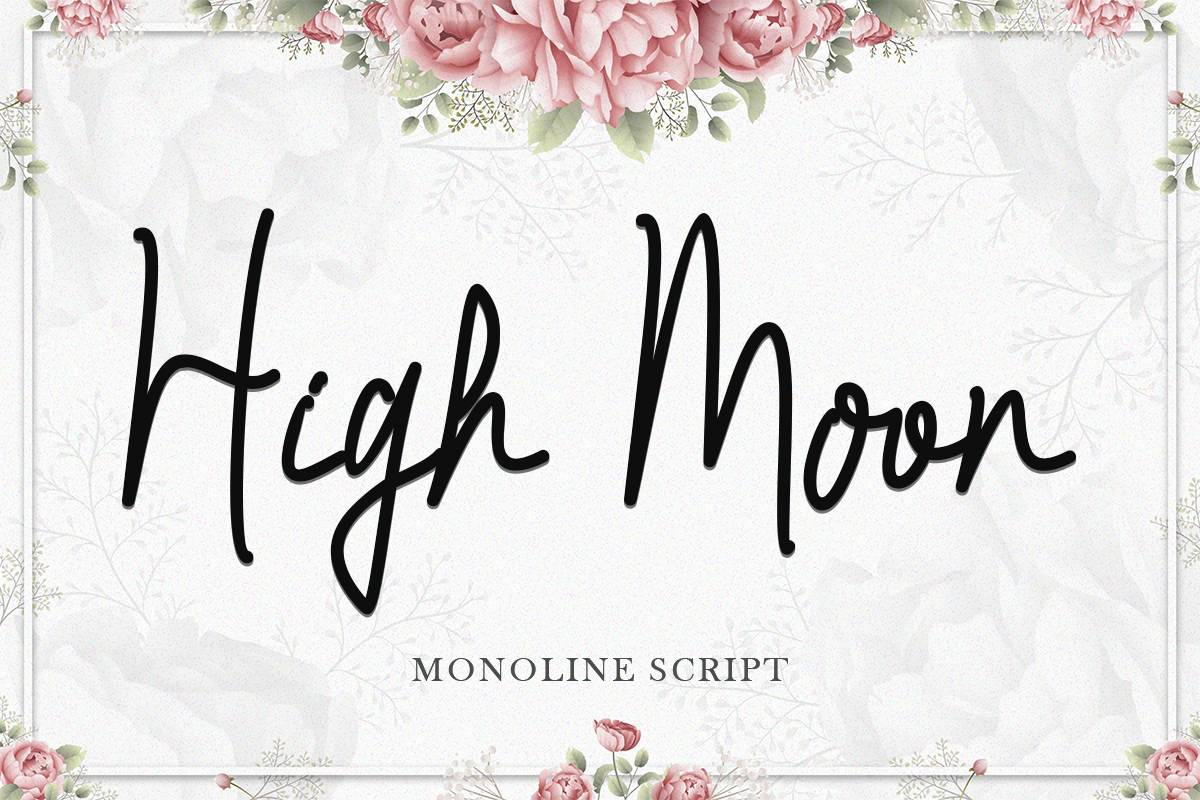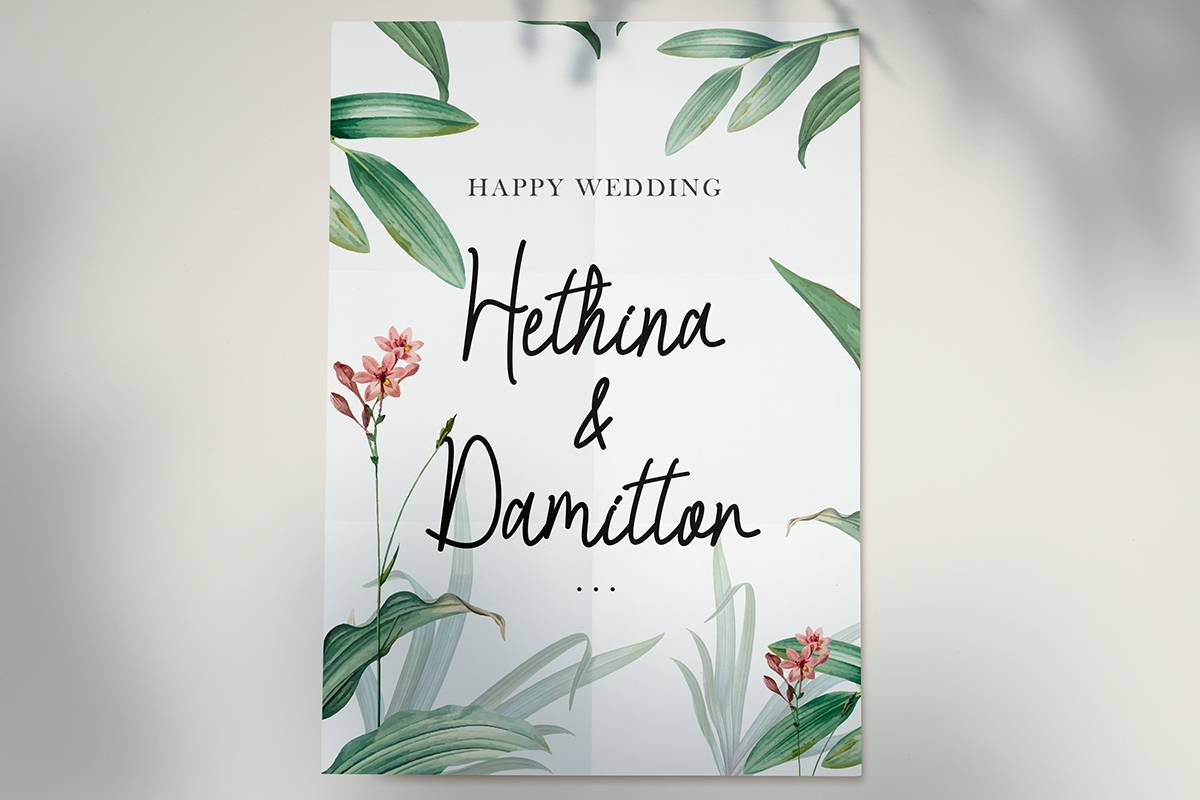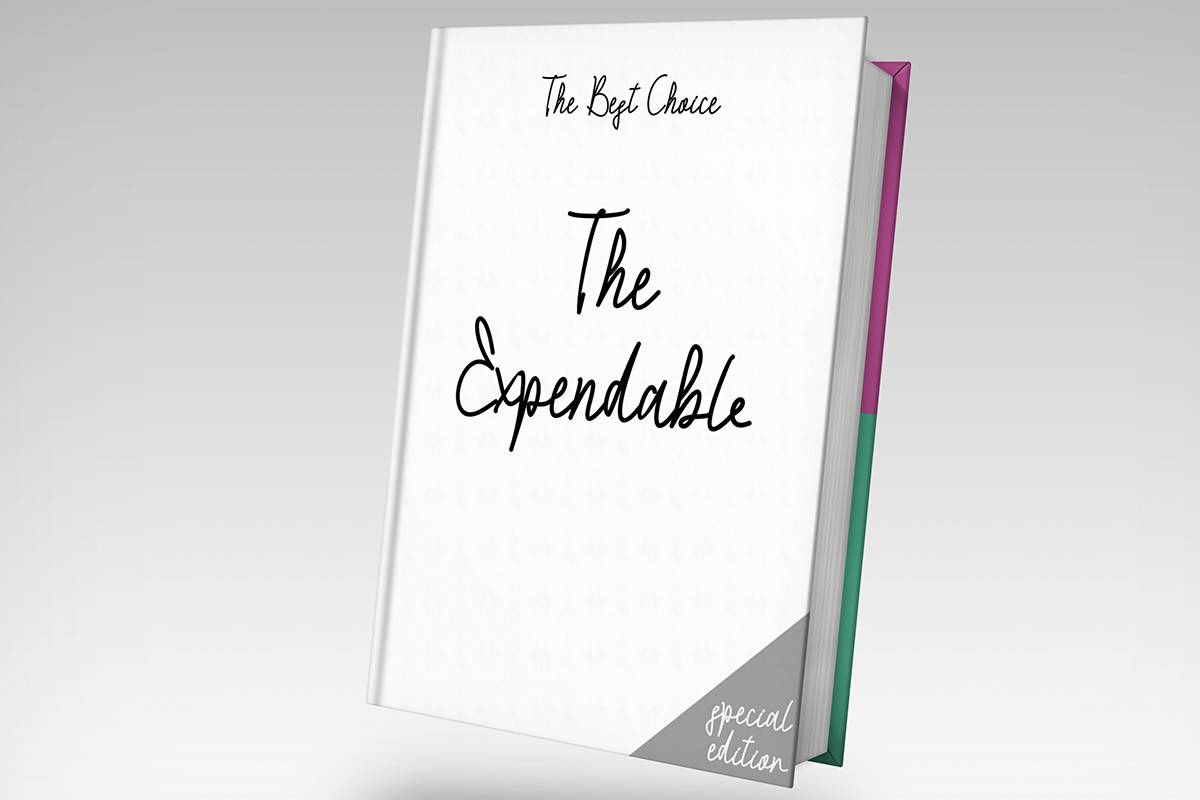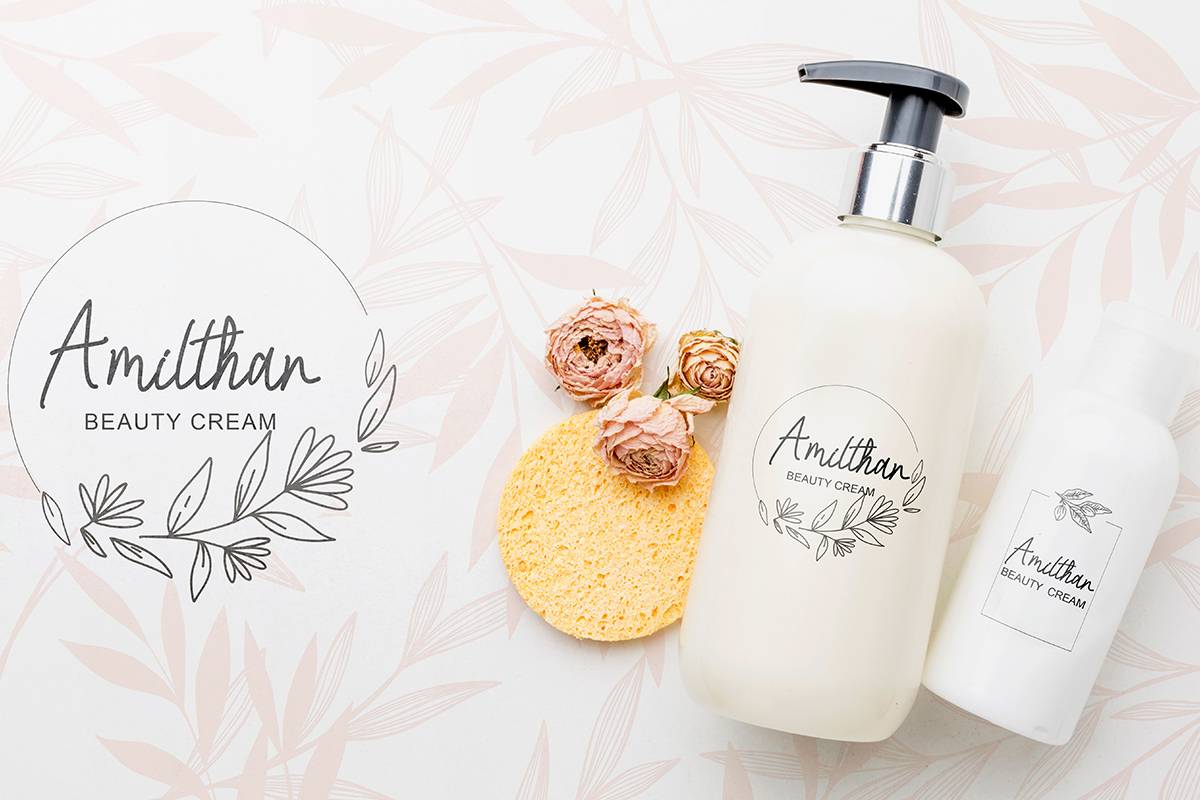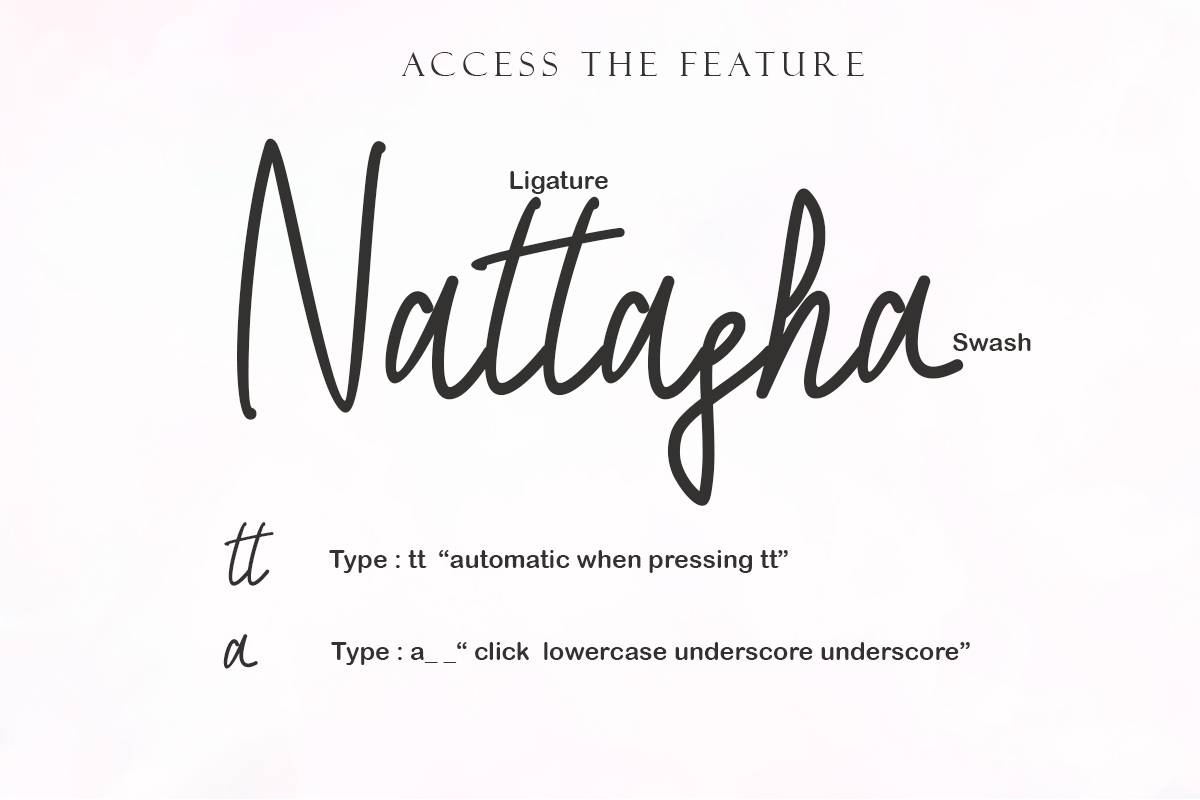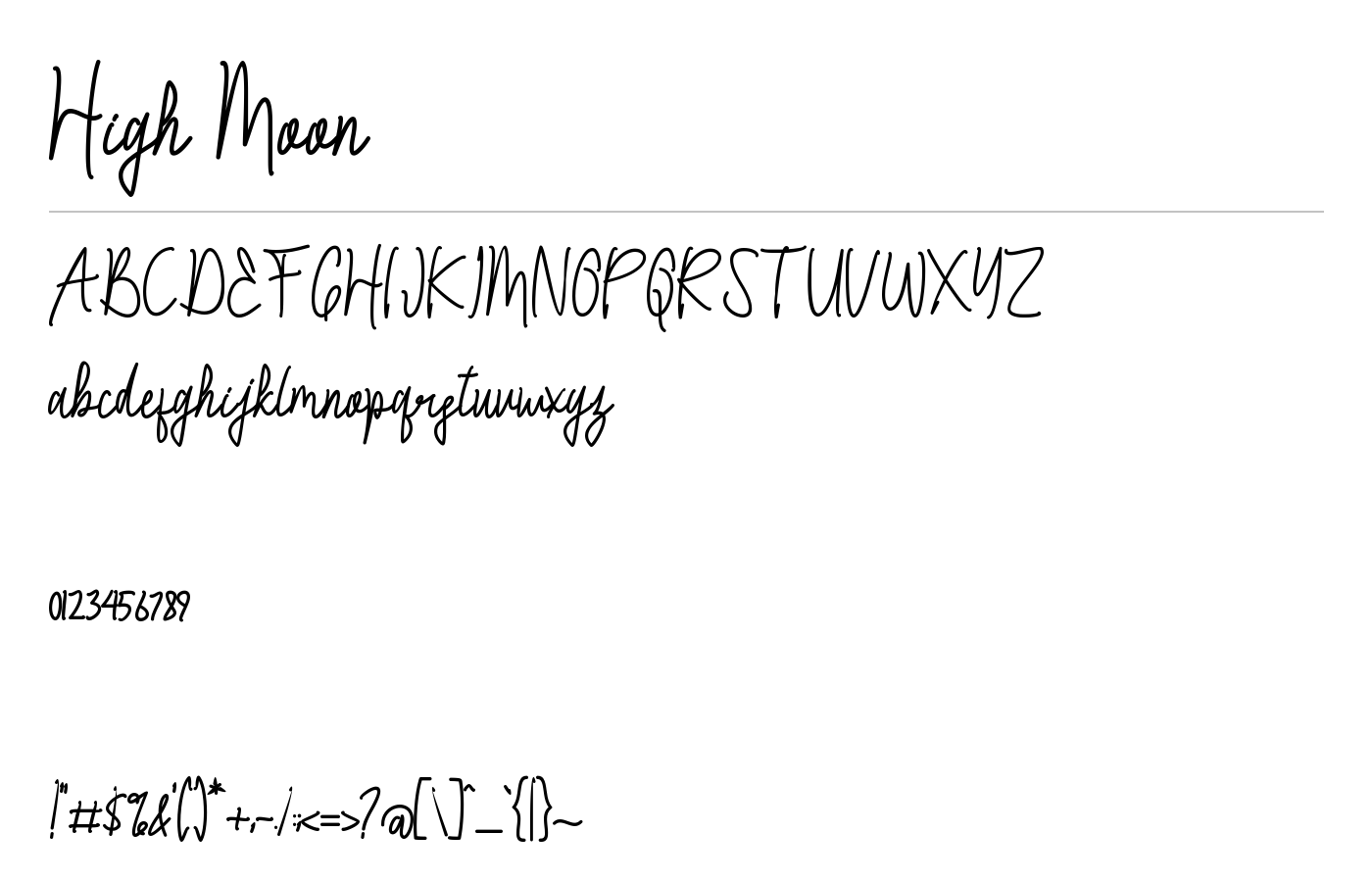
High Moon is a playful, handwritten script font with a casual and friendly vibe. Its slender, slightly irregular strokes and tall, narrow letterforms create an airy and personal feel, making it ideal for creative projects, invitations, and branding that seeks an approachable, hand-crafted touch. This font works best in display uses where a warm, informal tone is desired.
High Moon Font
About High Moon Font
| Font family | High Moon Font |
| Designer | Yoga Letter 2021 (isroniyoga) |